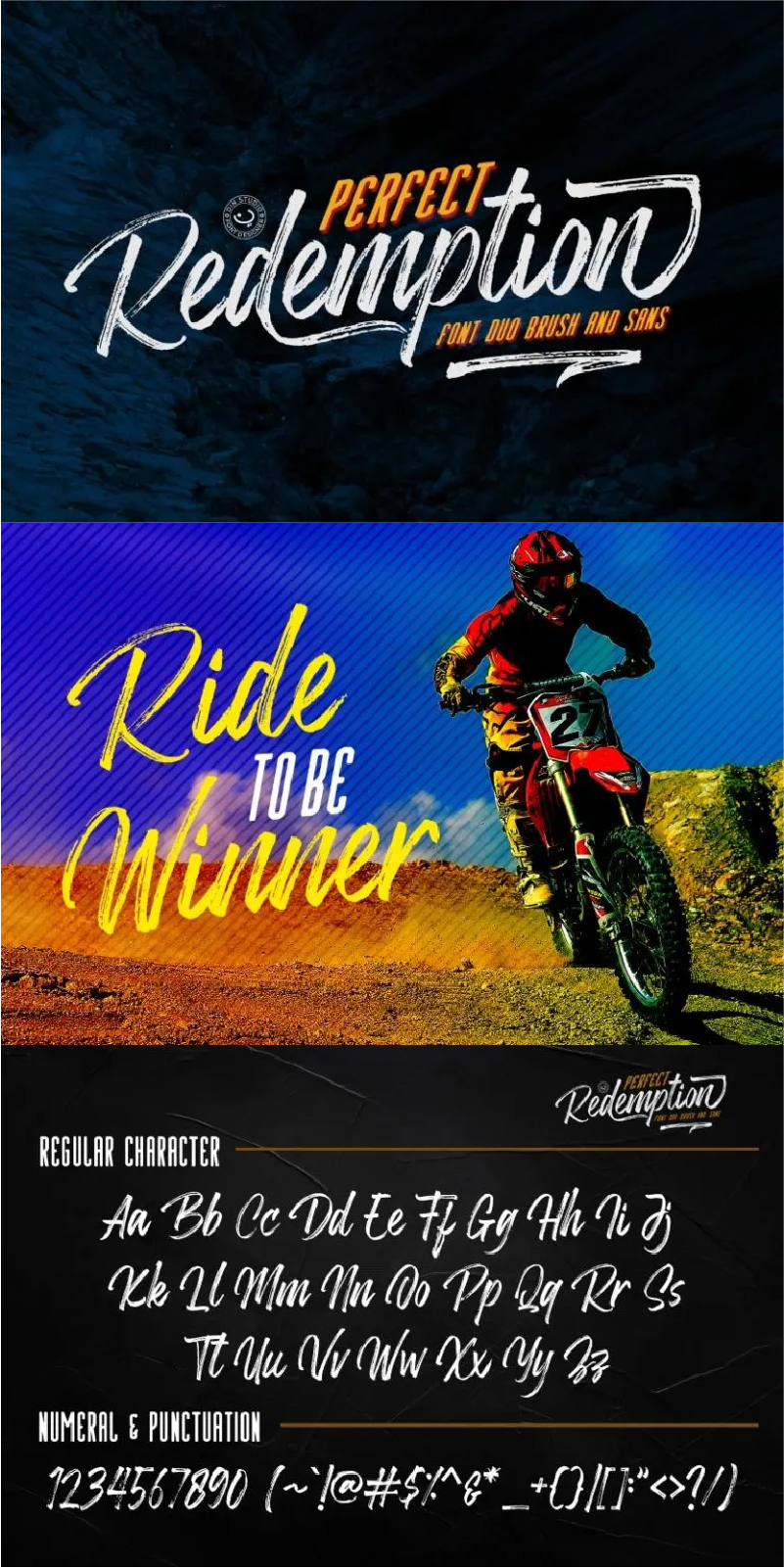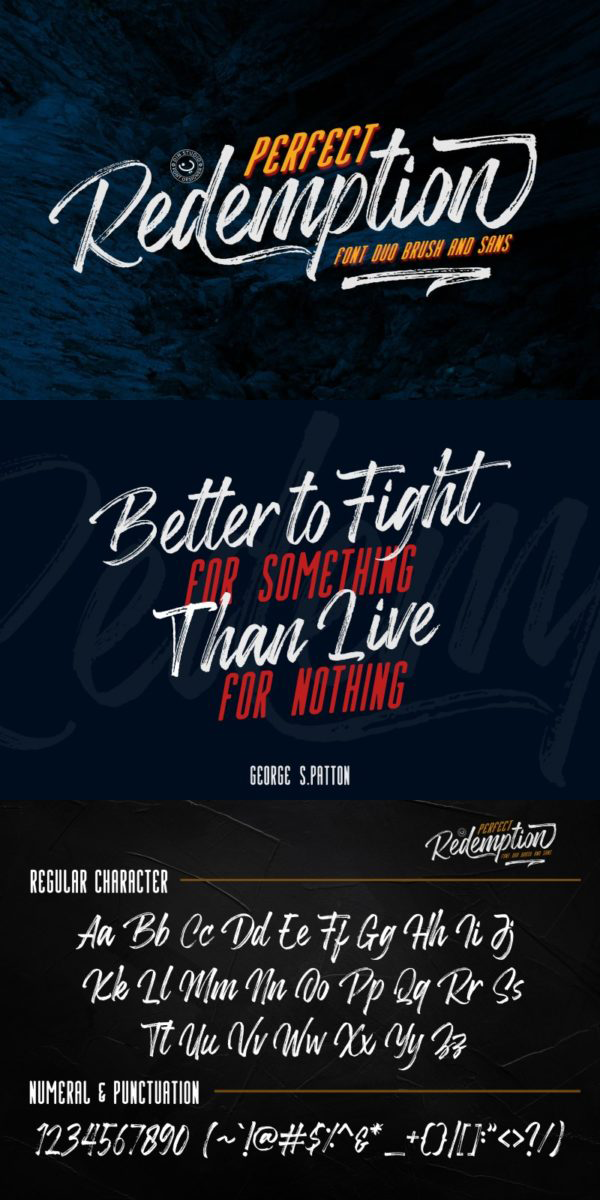
Perfect Redemption Font
About Perfect Redemption
Introducing Perfect Redemption – Font Duo. It is a combination of brush and sans fonts. It is made with a natural brush. The texture from the brush font will make your designs more beautiful and powerful. This font is suitable for any design like brandings, quotes, t-shirt printings, etc. See the previews above to get some inspiration on how you can use them. Enjoy the font!
-Accents (Multilingual Characters)
-64 Alternates
-50 Extra Swashes
-Numerals and Punctuations (OpenType Standard)